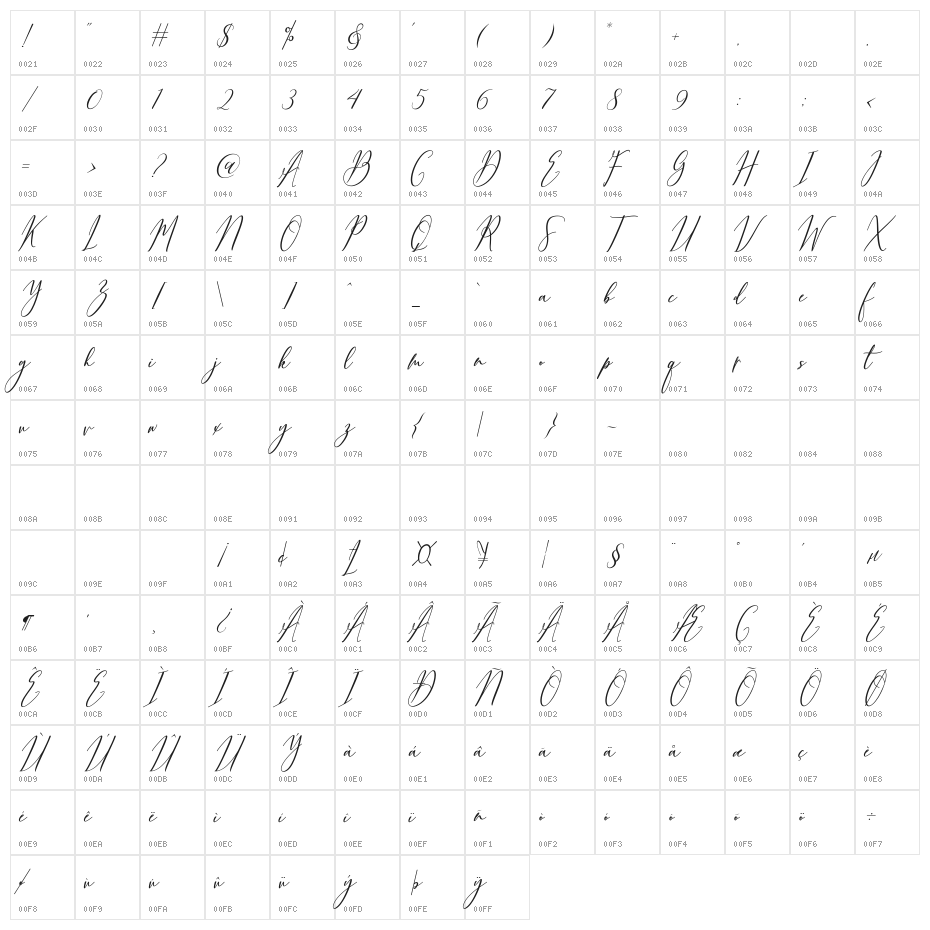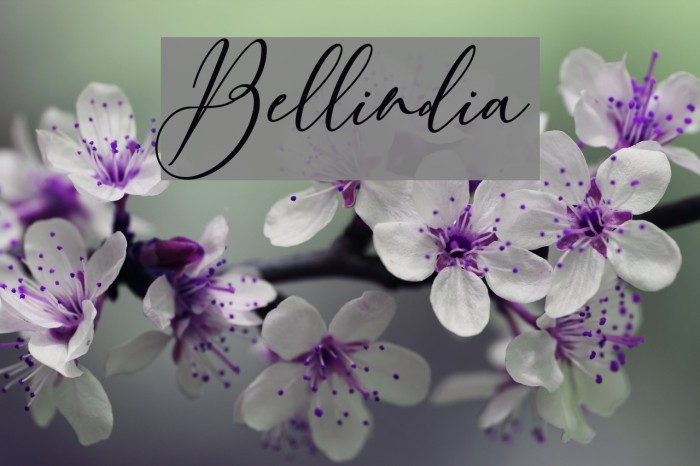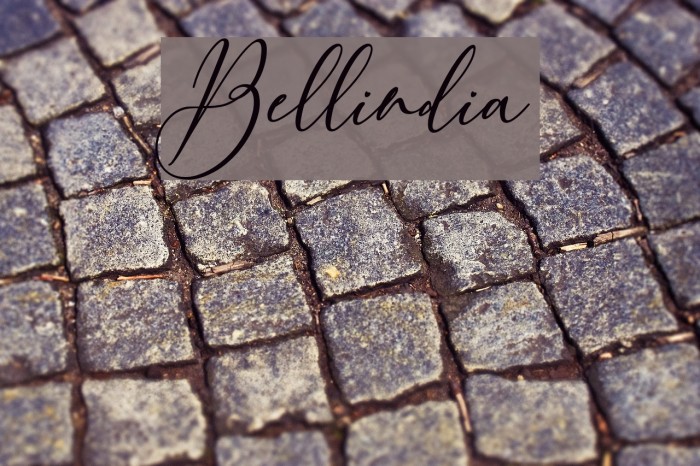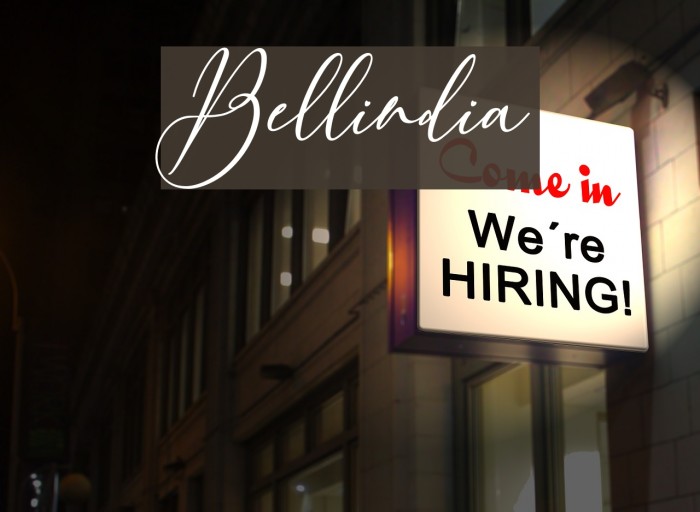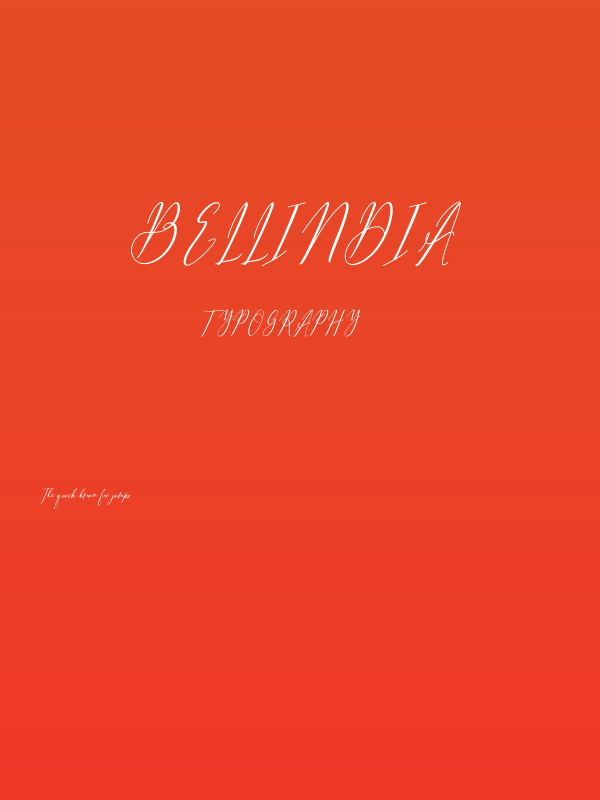
Bellindia Font
Bellindia Description
This elegant script font features a flowing, cursive style with a sophisticated flair. The letters are connected, creating a seamless and graceful appearance. The uppercase characters are tall and slightly slanted, with delicate loops and swashes that add a touch of refinement. The lowercase letters maintain a consistent flow, with smooth curves and subtle variations in stroke thickness. The numerals are designed to match the overall aesthetic, with a similar slant and fluidity. Special characters are thoughtfully integrated, maintaining the font's cohesive look. This font exudes a sense of elegance and charm, making it ideal for projects that require a touch of sophistication.
Overall StyleElegant, Sophisticated
Use CaseLogos, Invitations, Decorative text
Proposed ProjectsIdeal for wedding invitations, elegant branding, greeting cards, and upscale packaging.